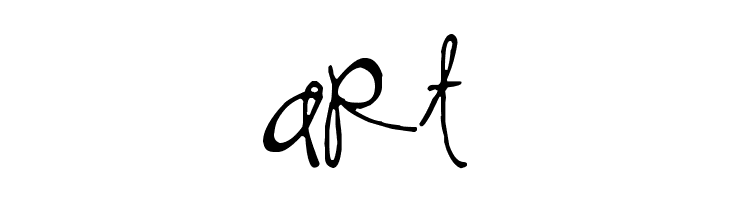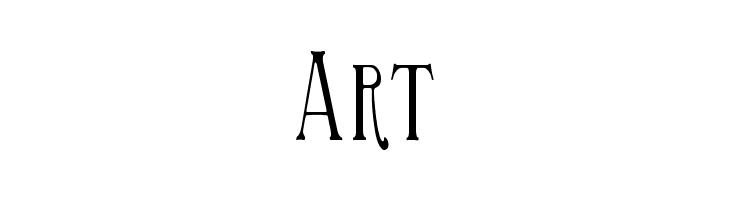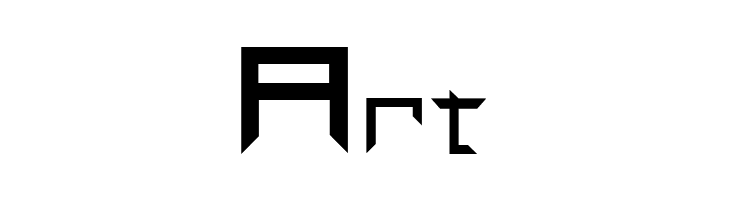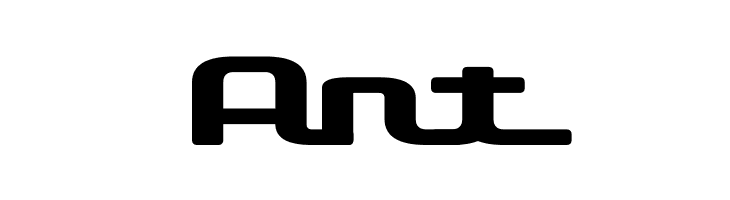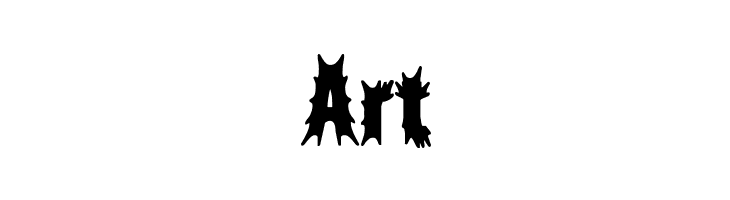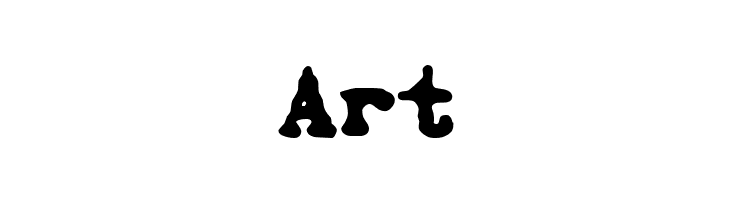
An elegant script font with intricate swashes and a classic calligraphic style.
A playful, handwritten font with a whimsical and friendly appearance.
A bold, rugged font with irregular, angular letterforms and a hand-cut appearance.
An elongated, high-contrast serif font with a sophisticated and decorative style.
A modern, wide, and geometric font with a futuristic, mechanical feel.
A bold, jagged font with sharp, thorn-like edges for dramatic impact.
A bold, brush-style font with high contrast and dynamic strokes.